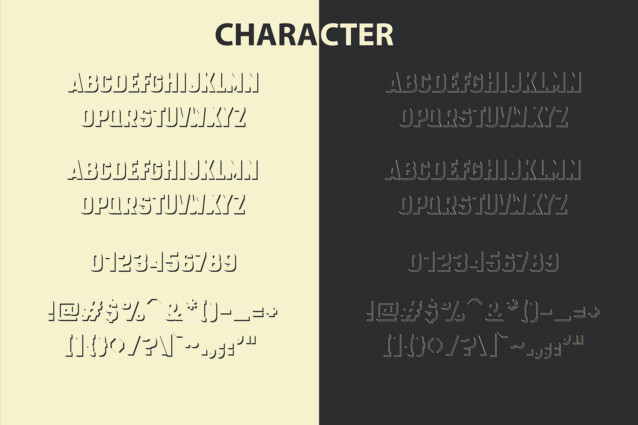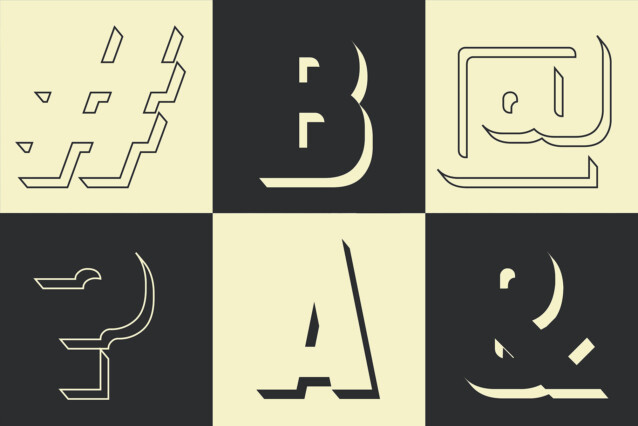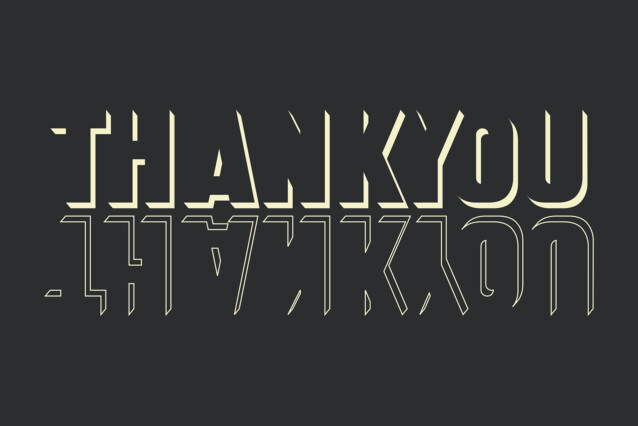
Selynova Font
Selynova Font is a simple and sans serif font. So perfect for you who needs a typeface for logo designs, magazine, social media, brochure, and many more.